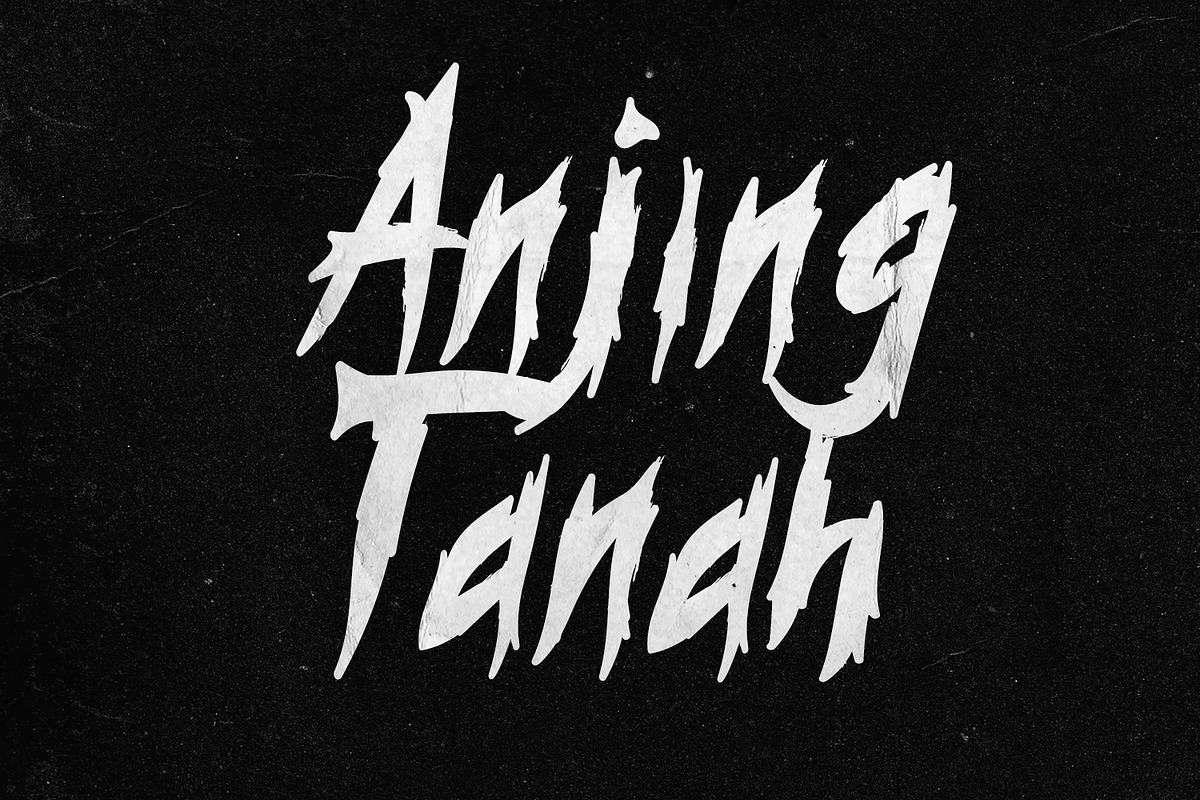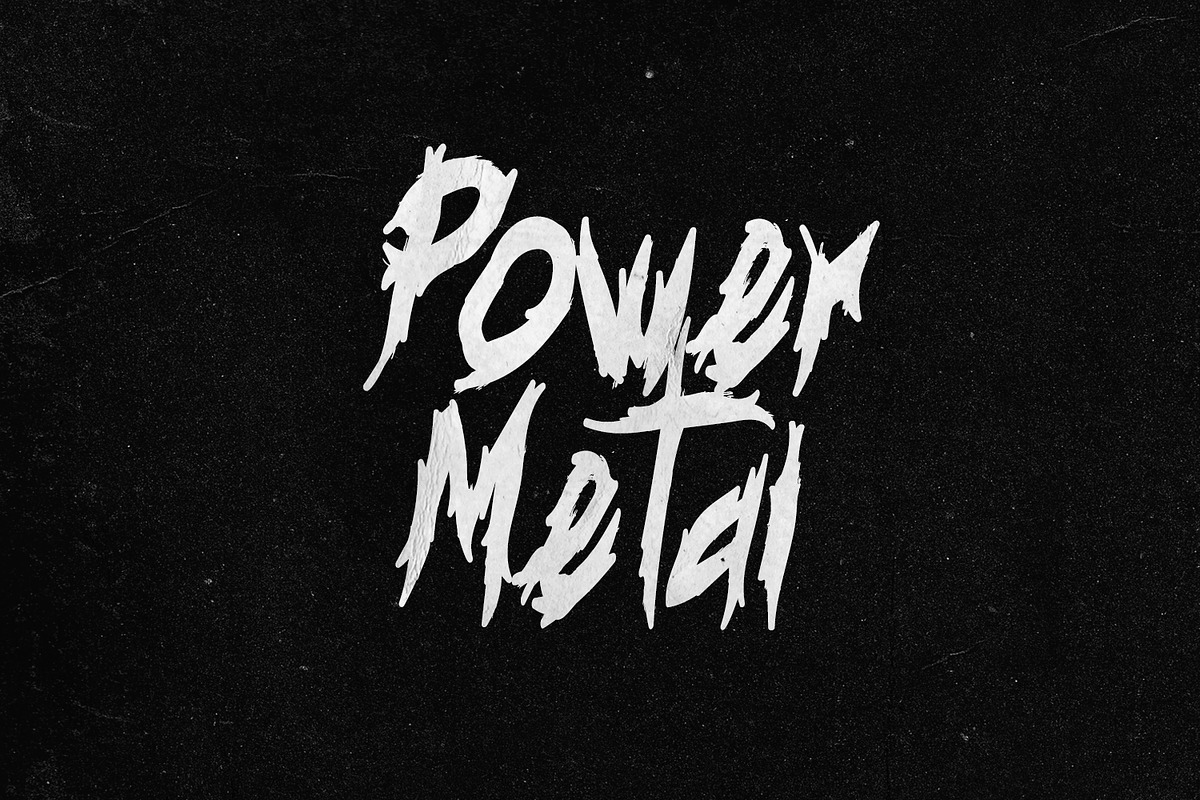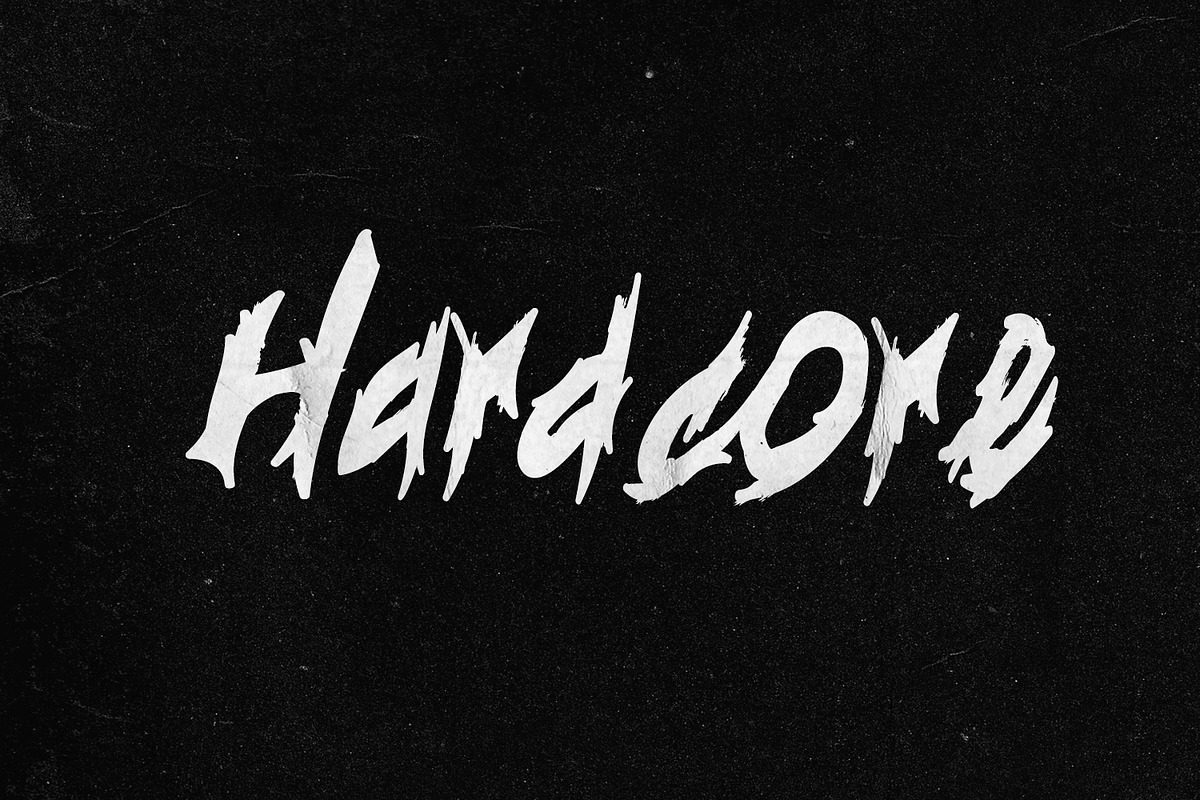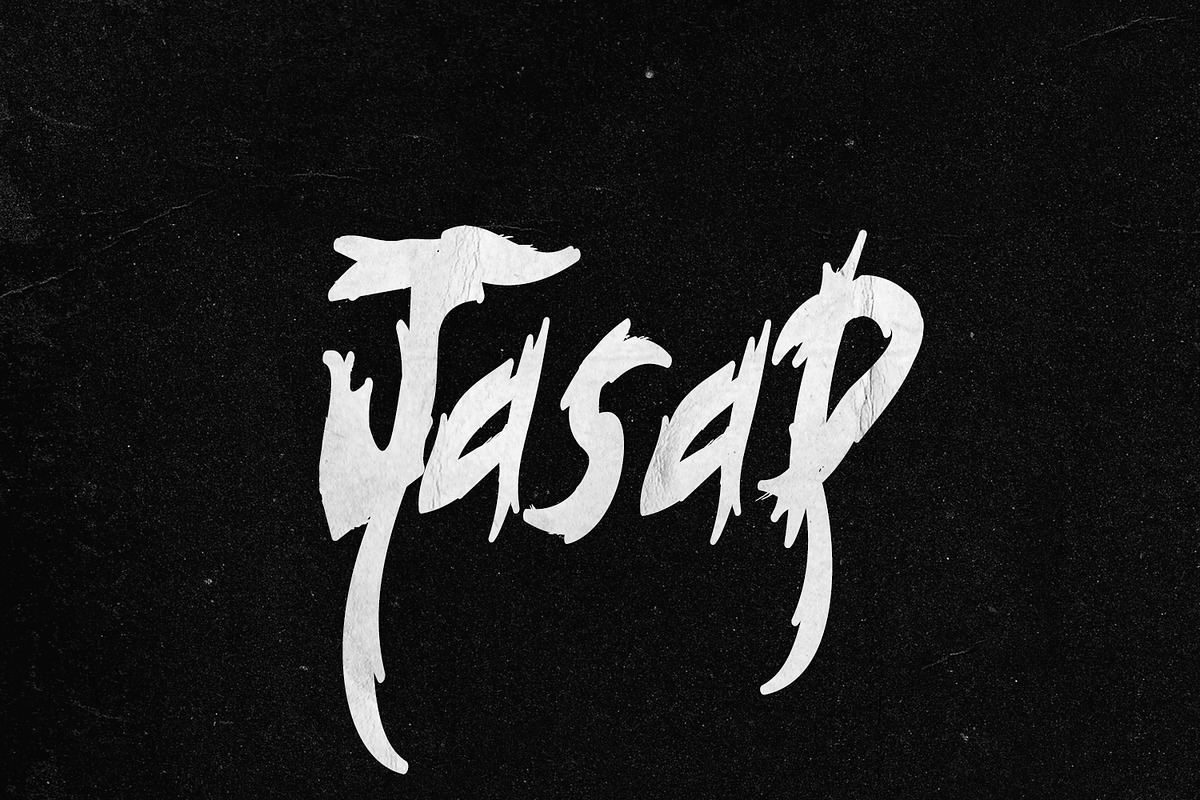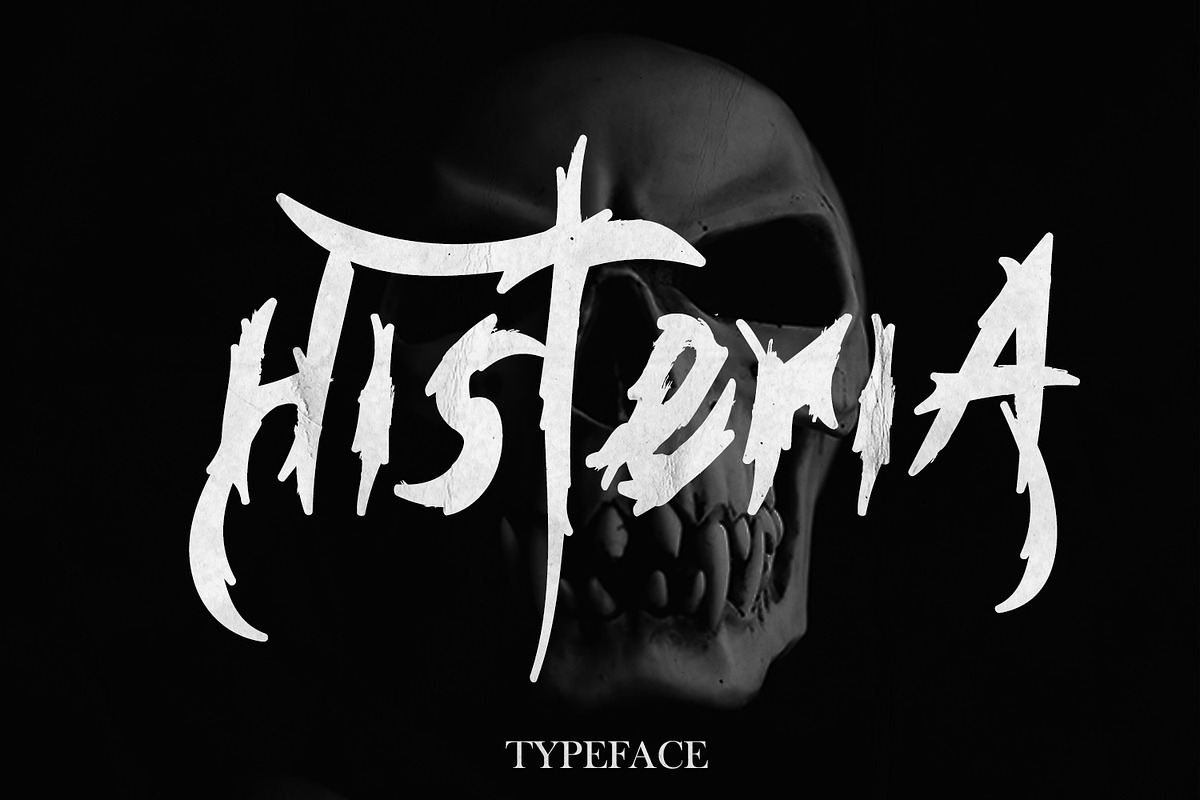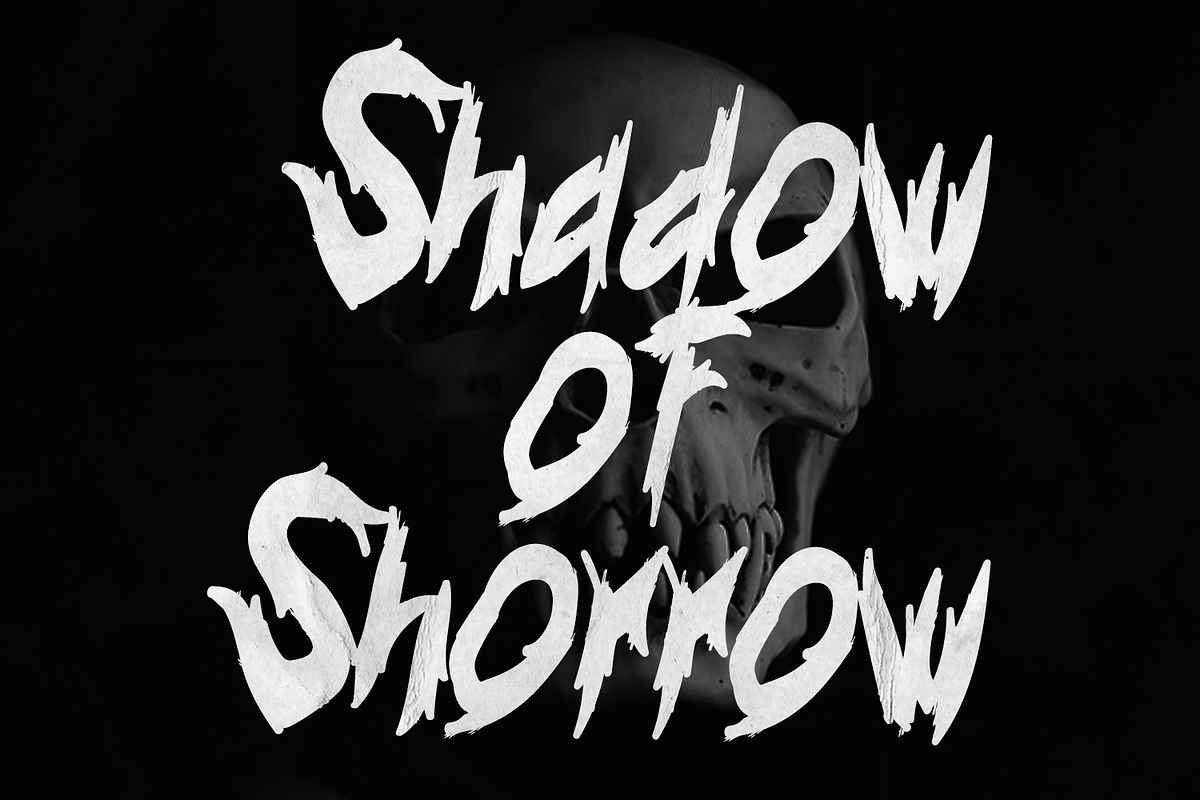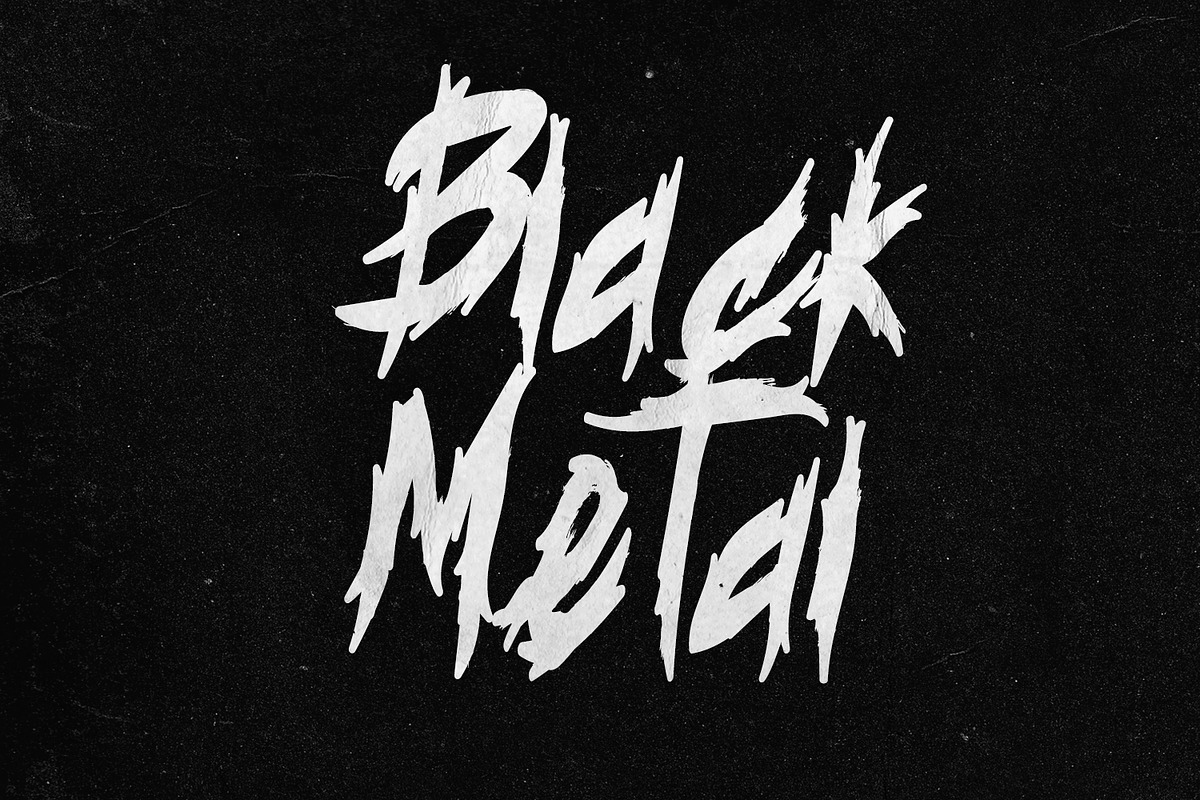
Hysteria - Typeface
Histeria is very stylistic so you can easily create a logo for your band or whatever. It comes with basic characters and a group of symbols and signs that are often used in the extreme music sector - classic items from Death- and Blackmetal such as pentagrams and crosses, droplets, roots and branches.